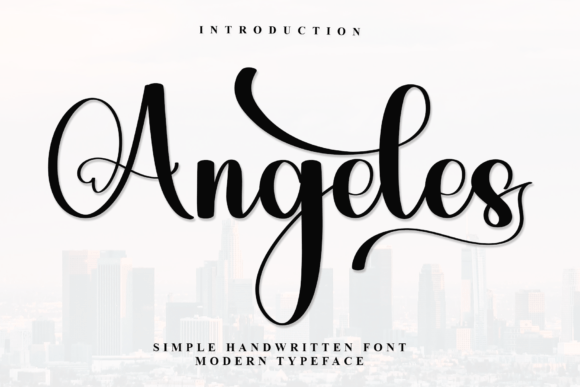
Discover the Charm of Angeles Font: Elevate Your Designs with Fresh Elegance
In the world of typography, few fonts manage to capture the essence of freshness and casual elegance as beautifully as Angeles Font. This charming handwritten font has been making waves in the design community for its fluid strokes, organic lines, and the laid-back vibe it effortlessly evokes. Whether you’re a professional designer, a crafty DIY enthusiast, or a social media influencer looking to elevate your brand’s visual identity, Angeles Font is an excellent choice to add a touch of warmth and personality to your projects.
The Unique Characteristics of Angeles Font
Angeles Font stands out in the crowded world of digital typography due to its unique characteristics. Its fluid strokes and organic lines give it a natural, handcrafted feel that resonates with audiences looking for authenticity. The font’s design is carefully crafted to evoke a sense of casual elegance, making it versatile enough for a wide range of applications, from luxury branding to whimsical invitations.
One of the key advantages of Angeles Font is its versatility. It’s a font that can seamlessly transition from one design project to another, adapting its charm to fit various themes and styles. Here are some of the areas where Angeles Font truly shines:
• Branding: Angeles Font can help brands establish a friendly and approachable image. Its unique character ensures that your brand stands out in a crowded market, making it memorable to your audience.
• Invitations: Whether it’s a wedding invitation, a birthday party, or a casual get-together, Angeles Font adds a personal touch that makes your invites feel more special and engaging.
• Social Media Graphics: In the realm of social media, where content is king, Angeles Font can help elevate your graphics, making them more engaging and visually appealing to your followers.
Why Designers and Crafters Love Angeles Font
Designers and crafters alike are drawn to Angeles Font for several reasons. Its aesthetic appeal is undoubtedly a major draw, but the font also offers practical benefits:
• Ease of Use: Angeles Font is designed to be user-friendly. It comes in a clean and straightforward format, making it easy to integrate into your projects, regardless of the software you’re using.
• Customization: The font’s flexibility allows for a high degree of customization. You can adjust its size, color, and even play with its ligatures to create a unique look that fits your project’s needs.
• Emotional Connection: Perhaps most importantly, Angeles Font helps create an emotional connection with your audience. Its warm and inviting feel makes your designs more relatable and engaging.
Tips for Getting the Most Out of Angeles Font
To truly leverage the potential of Angeles Font, consider the following tips:
• Pair it Wisely: Angeles Font pairs well with clean sans-serif fonts for a contrasting look or with other script fonts for a layered, textured effect.
• Play with Colors: Don’t be afraid to experiment with colors. Angeles Font looks great in bold, vibrant colors but can also convey elegance in softer, pastel shades.
• Utilize Ligatures: Take advantage of the font’s ligatures to add a personal touch to your designs. Ligatures can make your text more visually interesting and give it a handcrafted feel.
Angeles Font is more than just a typeface; it’s a design element that can transform your projects with its fresh elegance and casual charm. Whether you’re aiming to create a brand identity, craft beautiful invitations, or elevate your social media graphics, Angeles Font offers the versatility and aesthetic appeal to make your designs stand out. Its unique blend of fluidity and organic charm makes it an invaluable tool in the world of design. So, why settle for ordinary when you can add a touch of warmth and personality to your work with Angeles Font?